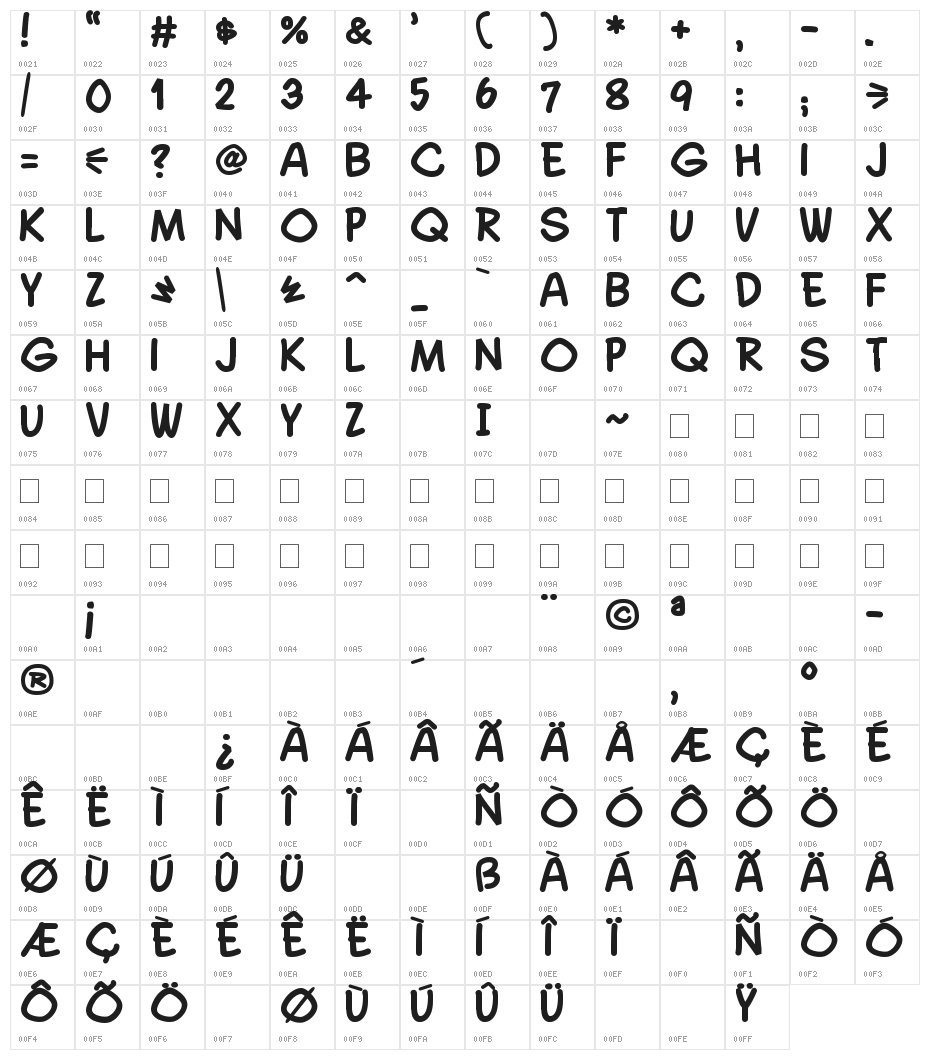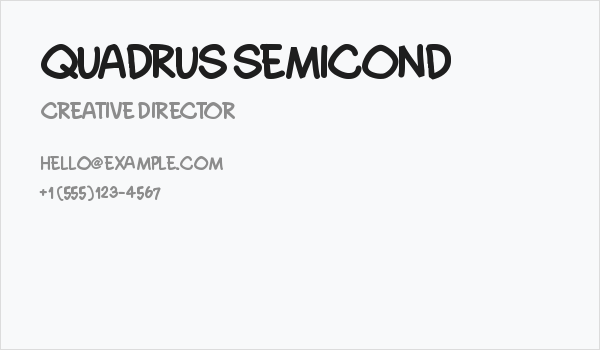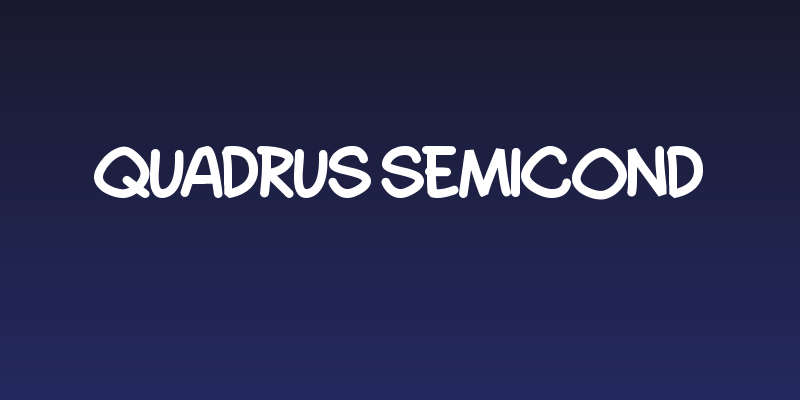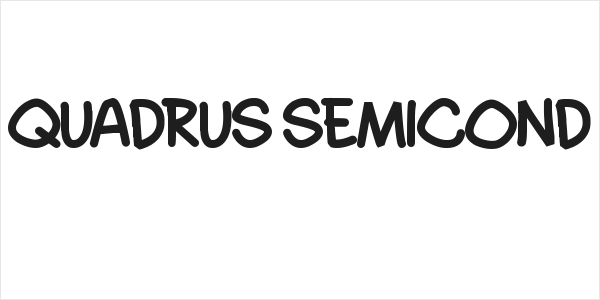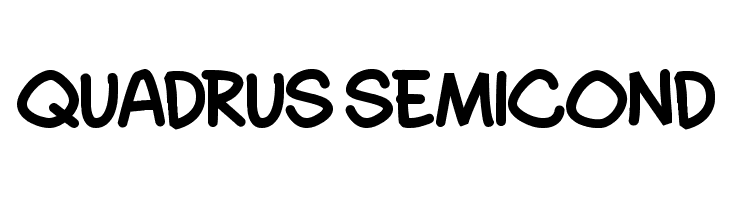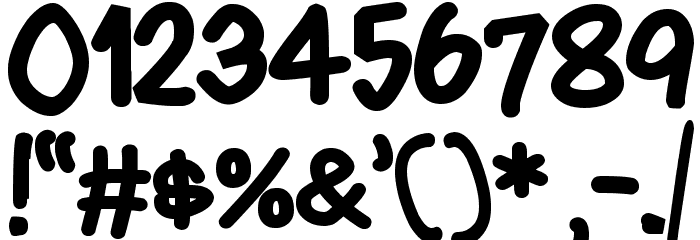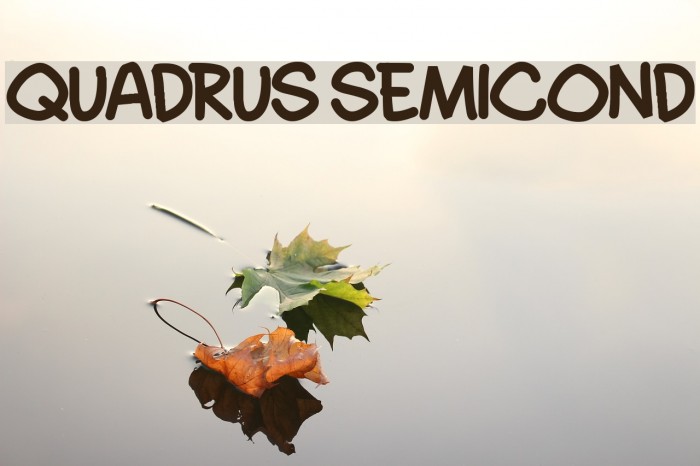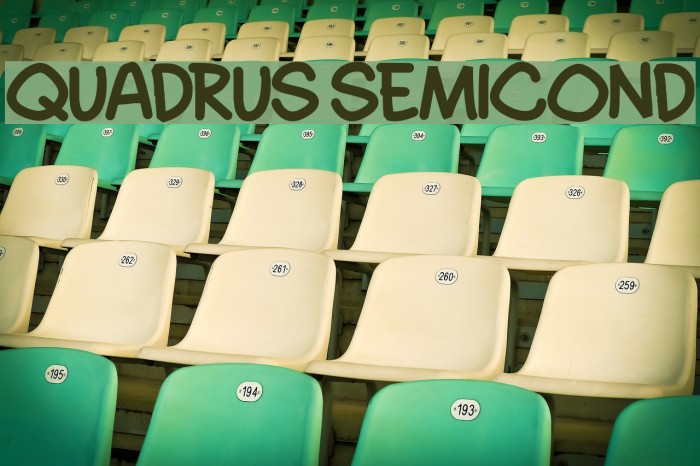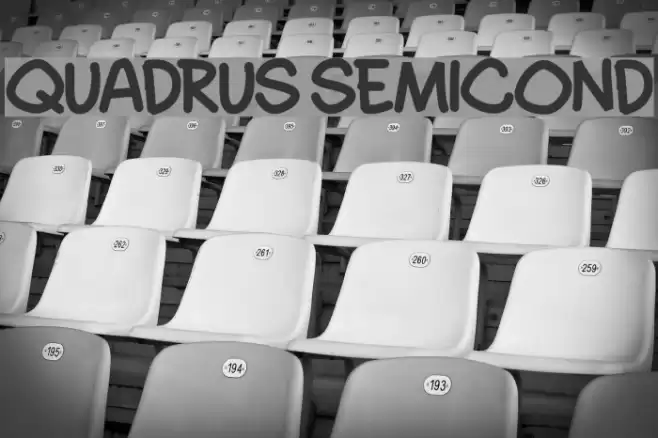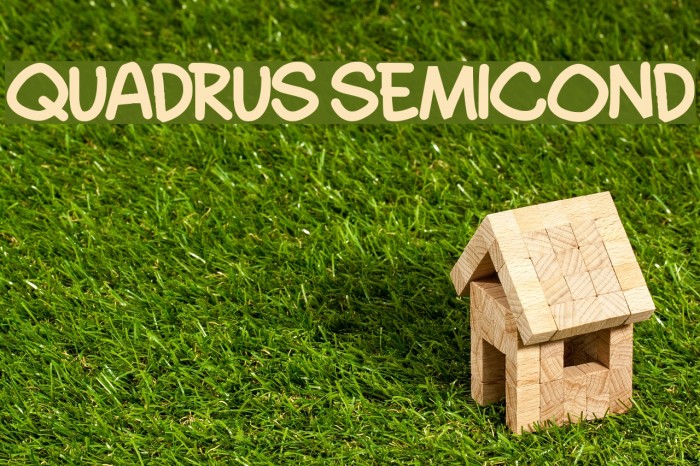
Quadrus Semicond Font
Quadrus Semicond Description
This playful and bold font features a handwritten style with rounded edges and a casual appearance. The characters are slightly slanted, giving them a dynamic and energetic feel. The uppercase letters are consistent in height, while the lowercase letters maintain a uniform baseline, enhancing readability. The numbers and special characters are designed to match the overall style, with a consistent stroke width that adds to the cohesive look. The font's informal and friendly vibe makes it suitable for projects that require a personal touch.
| Overall Style | Casual |
| Use Case | Headlines, Logos, Informal Text |
| Proposed Projects | Ideal for children's books, comic strips, casual branding, and playful invitations. |